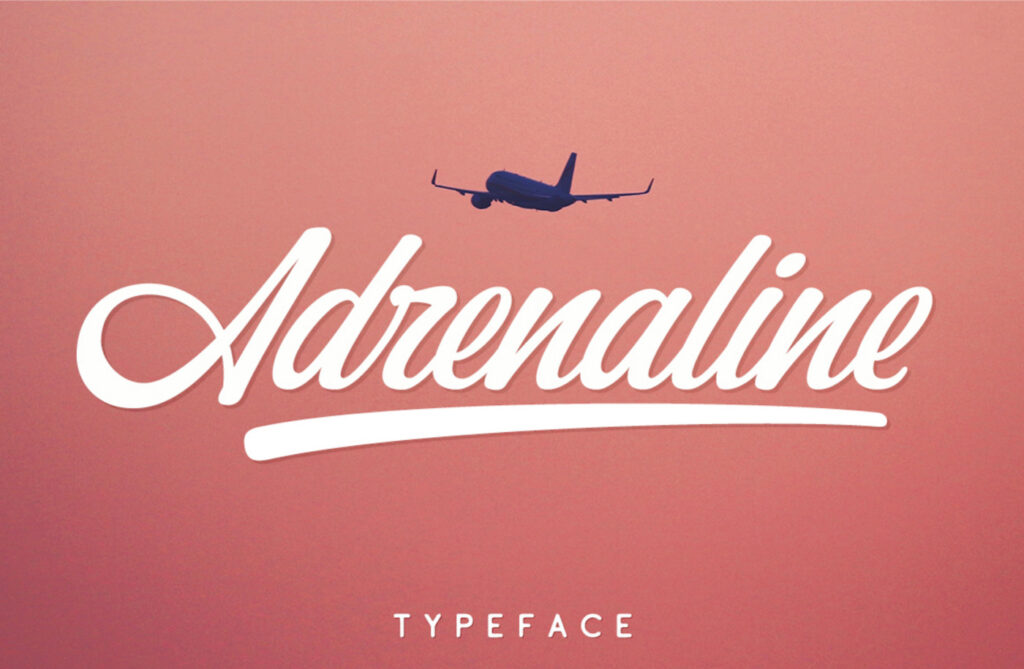
Adrenaline is a playful, modern, and multi-purpose script font, designed by Larin Type Co. This fonts is perfect for logos, prints, quotes, magazine headers and clothing, plus countless other projects.